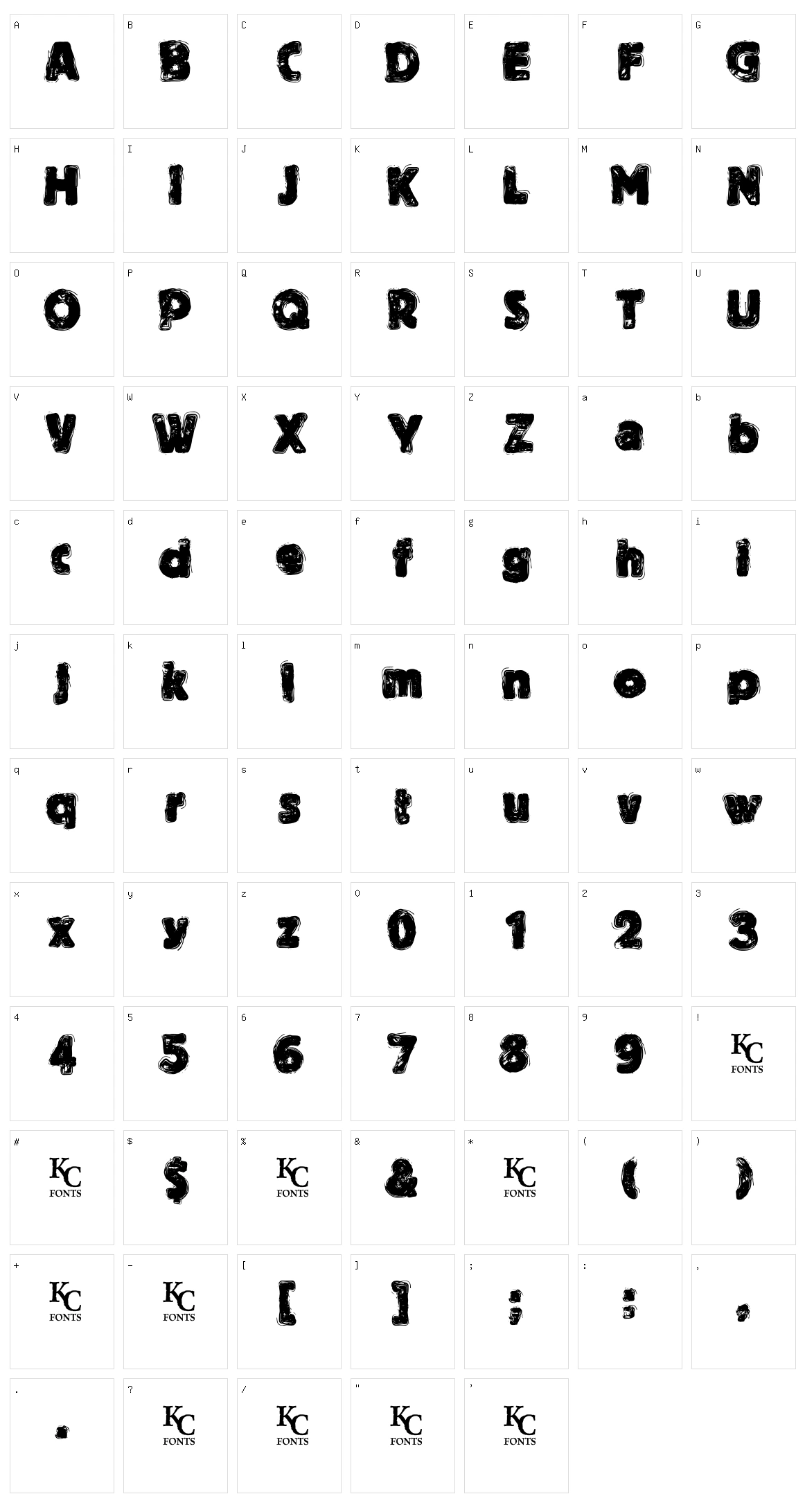
The free font By The Throat is carefully designed by KC Fonts, showcasing a thoughtful balance of creativity and usability and falls under the Destroy font style. When you download the ZIP file, it contains only 611.19 KB of font files, making it lightweight and quick to download. Please review the license details below to understand permitted usage and distribution rights. If license information is not available, we recommend using this font for personal projects only or contacting the author directly for commercial usage permissions.